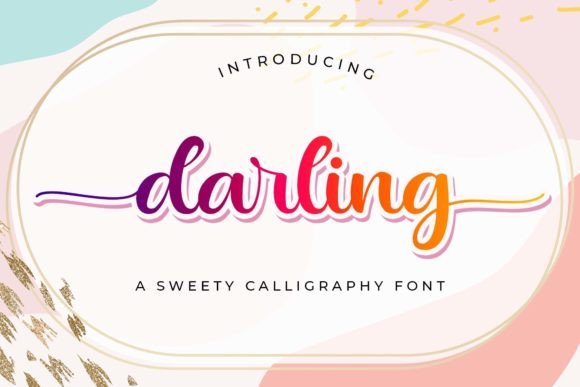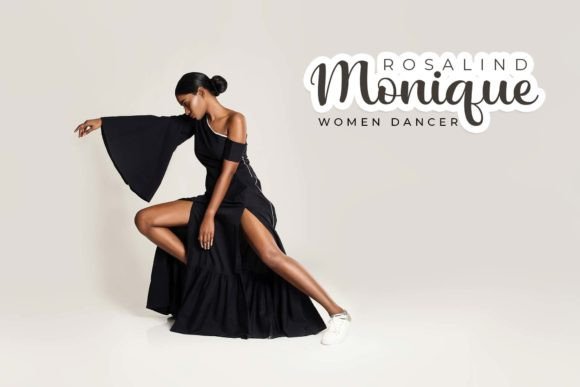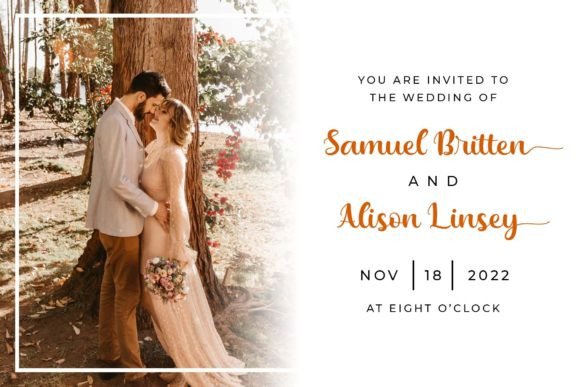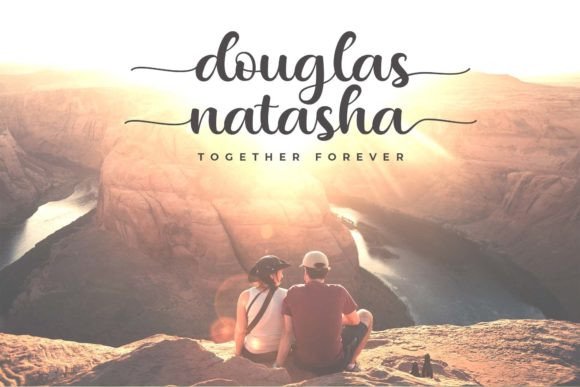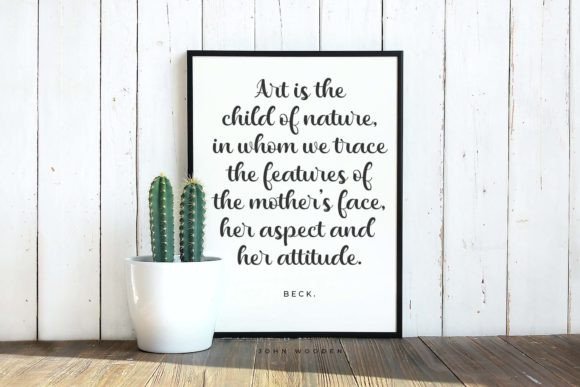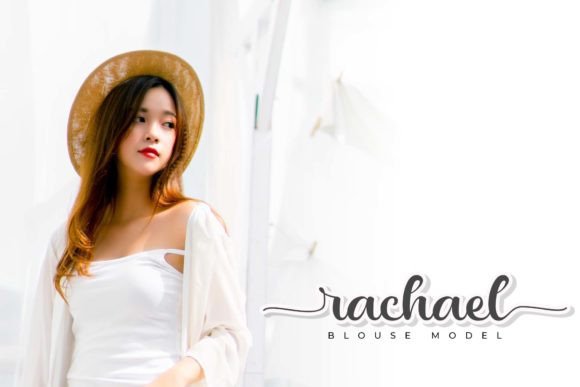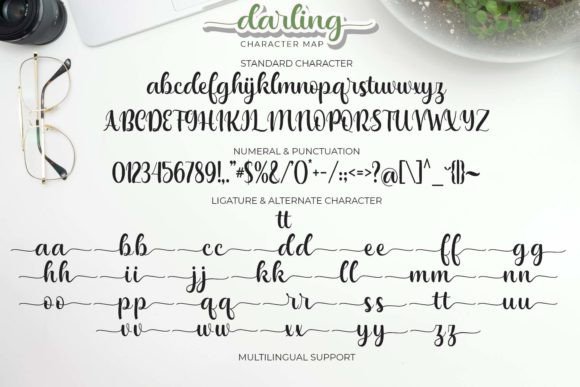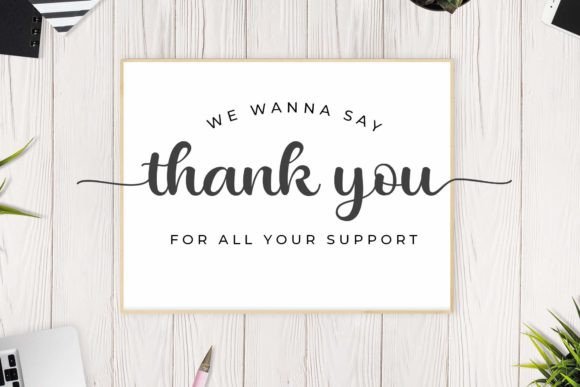
Darling Font
About Darling Font
**Darling: A Gorgeous and Elegant Calligraphy Font**
Darling is a truly enchanting and elegant calligraphy font that adds a touch of charm and sophistication to any design project. Whether you’re working on invitations, branding materials, or anything that requires a captivating appearance, Darling is your go-to choice.
The allure of Darling lies in its exquisite calligraphy style. Every stroke and curve has been meticulously crafted to create a font that exudes timeless beauty and grace. Its elegant and flowing characters bring a sense of sophistication to your designs, making it ideal for projects where you want to convey a charming and luxurious aesthetic.
One of Darling’s standout features is its PUA encoding, which allows easy access to all the glyphs and swashes. This means you have the freedom to personalize your designs, adding extra flourishes and artistic touches with ease.
Darling is versatile and can be used in a wide range of design contexts. It’s perfect for crafting elegant wedding invitations that set the tone for a memorable celebration. It’s also a great choice for branding materials, adding a touch of luxury and allure to your brand’s visual identity.
In summary, Darling is more than just a font; it’s a source of beauty and elegance that enhances your design projects. Its gorgeous calligraphy style and PUA encoding make it the perfect choice for infusing charm and sophistication into your work. With Darling, your creative projects will shine with a captivating and luxurious appearance. Choose Darling, and let your designs enchant your audience with its elegant and charming presence.